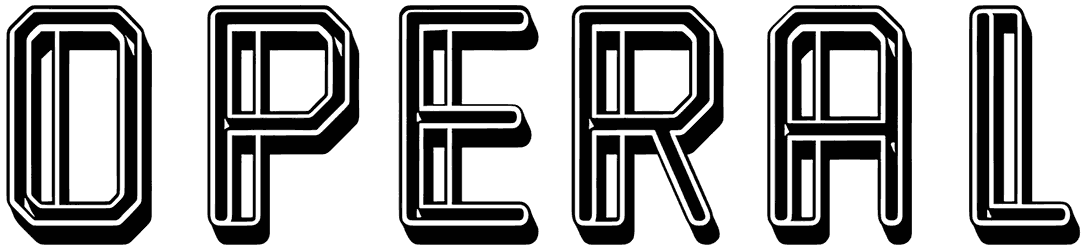
Operal Font
If you have used only a limited number of fonts to run your projects, it’s time to get rid of these limitations by downloading Operal. This inline font has a mechanical appearance that can change the architecture of any project.
This retro font, without lowercase letters and numbers, can be the turning point of your resume in the design of logos, posters, and any project related to the industry.